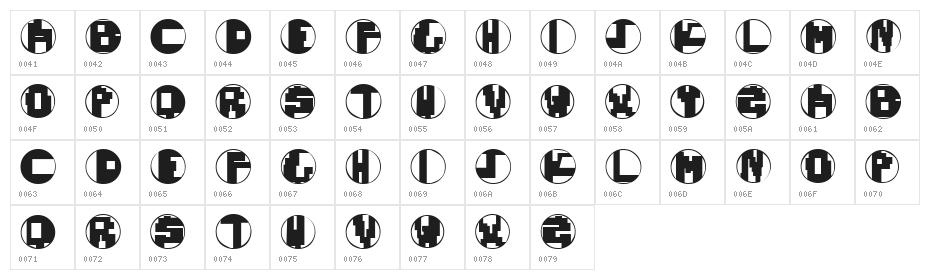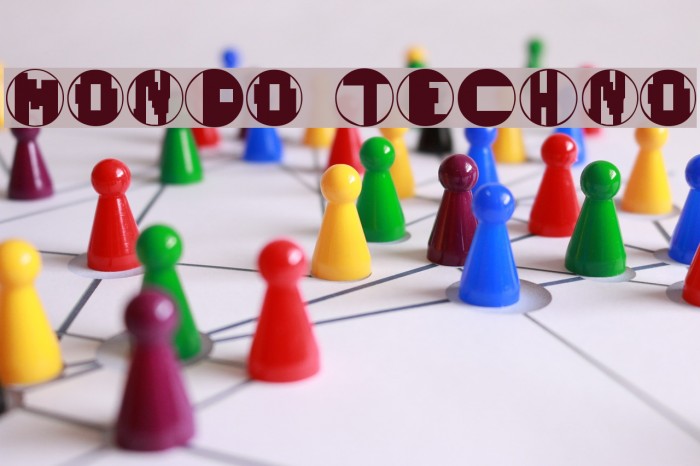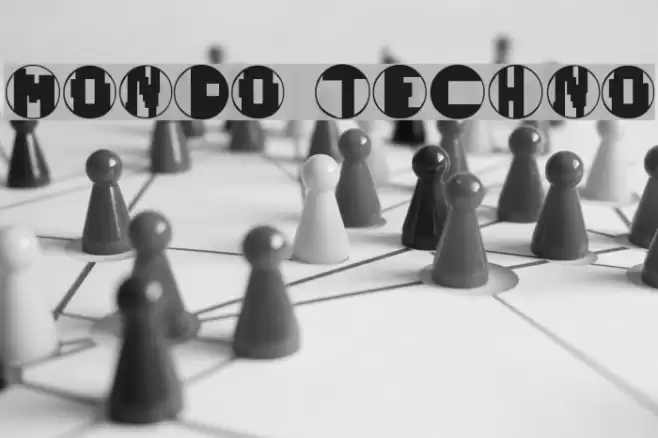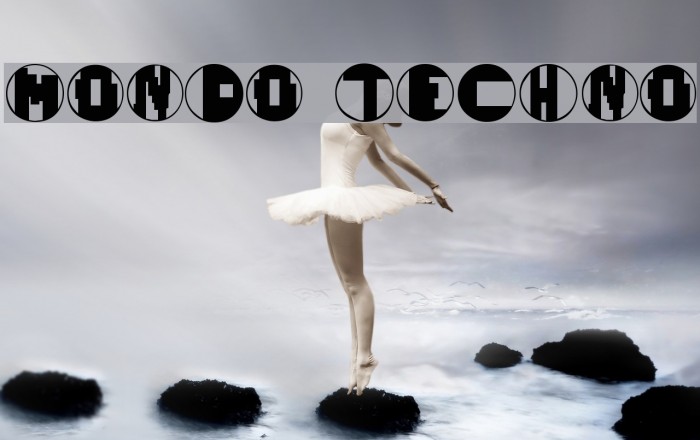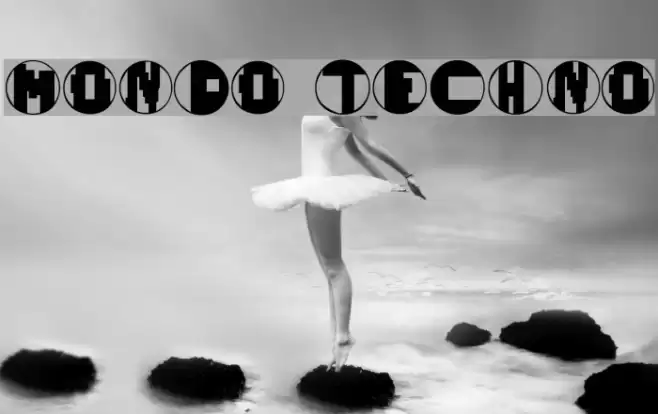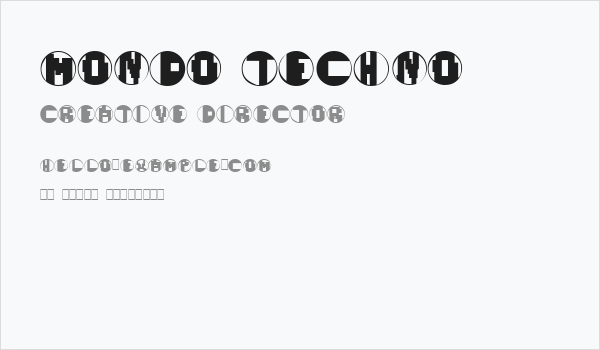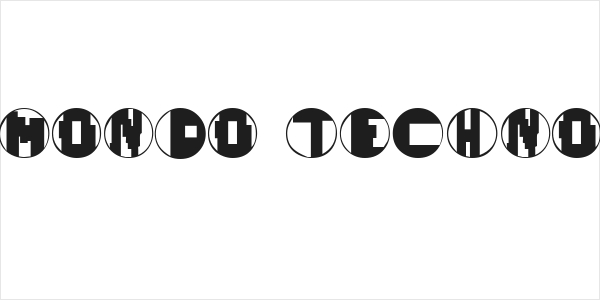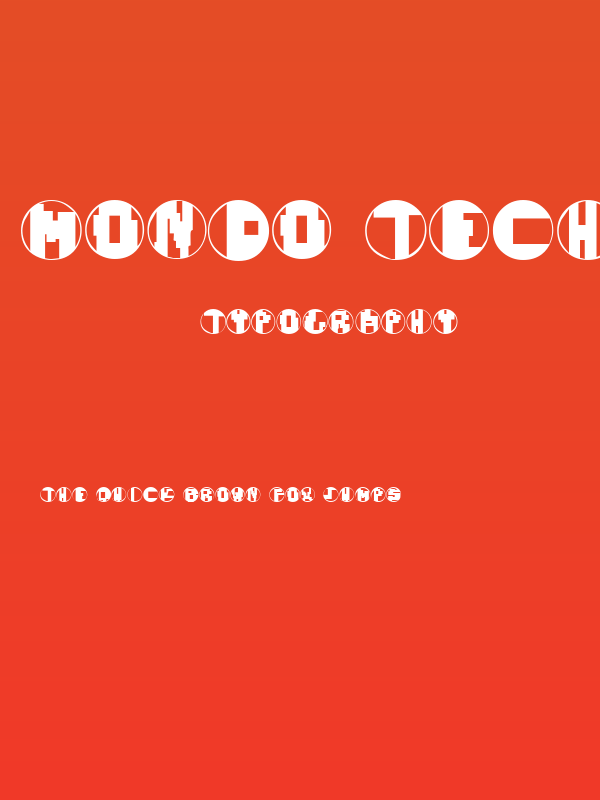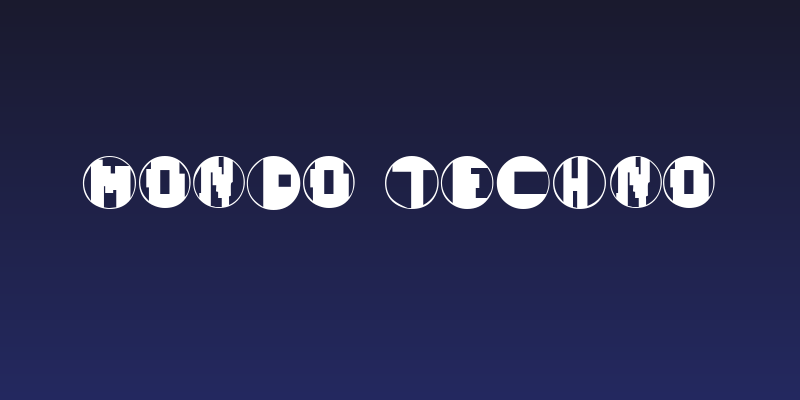
Mondo Techno Font
Mondo Techno Description
This font features a unique and futuristic design, characterized by its circular enclosures around each character. The letters are bold and geometric, with a distinct techno vibe that combines both solid and fragmented elements. The uppercase and lowercase letters maintain a consistent style, while the numbers and special characters follow the same design principles, ensuring uniformity across the typeface. The overall appearance is striking and modern, making it ideal for projects that require a bold and innovative look.
| Proposed Projects | Ideal for technology branding, sci-fi movie posters, digital art projects, and modern event flyers. |